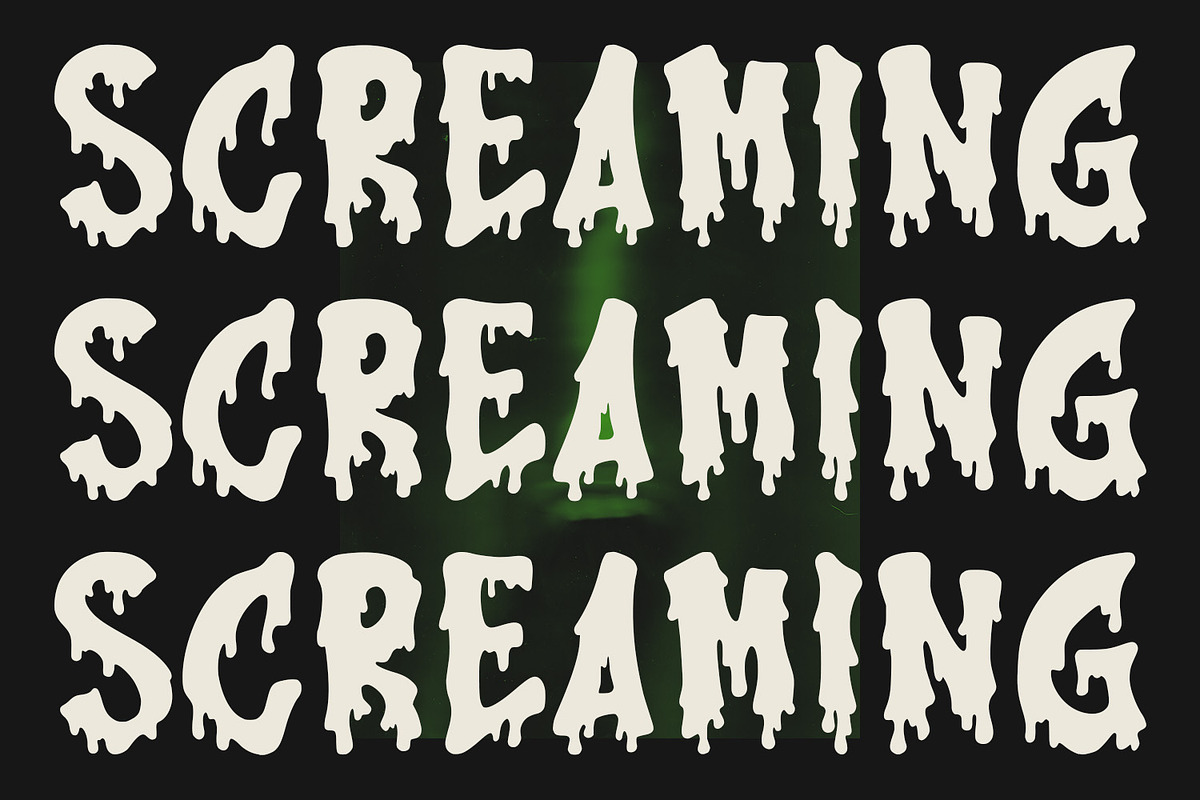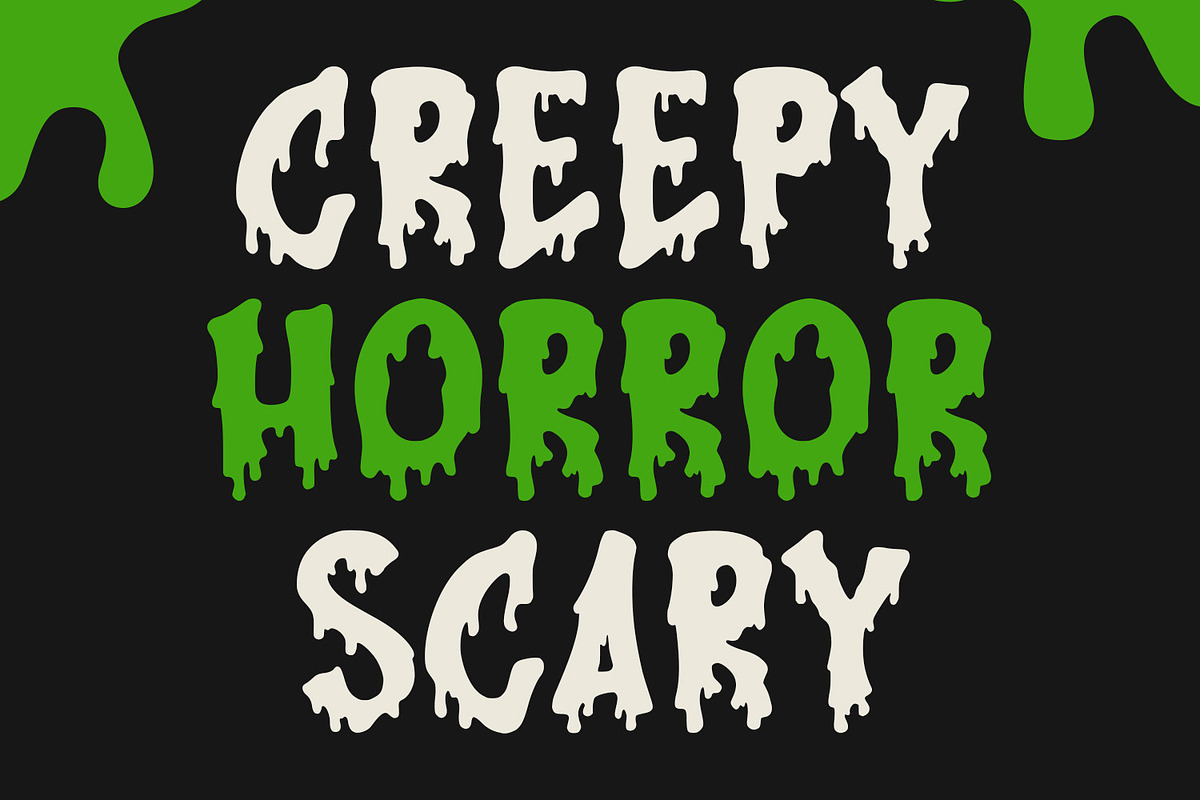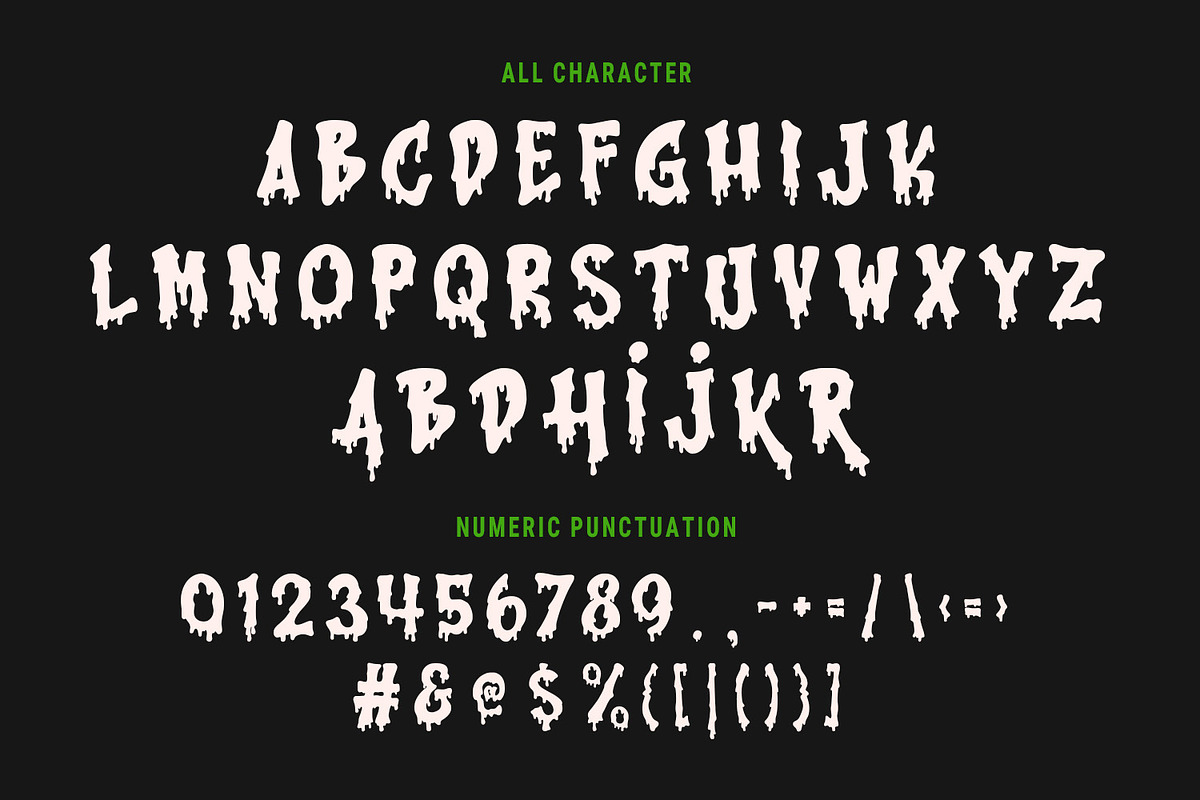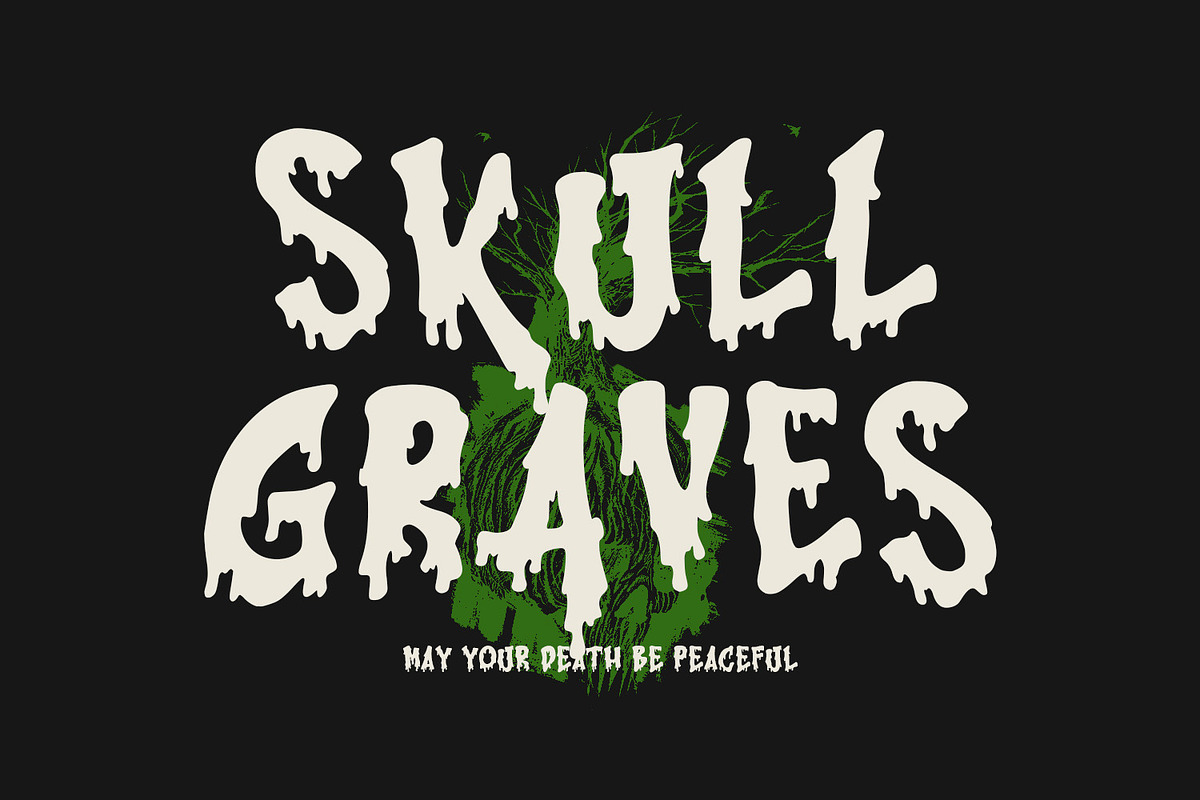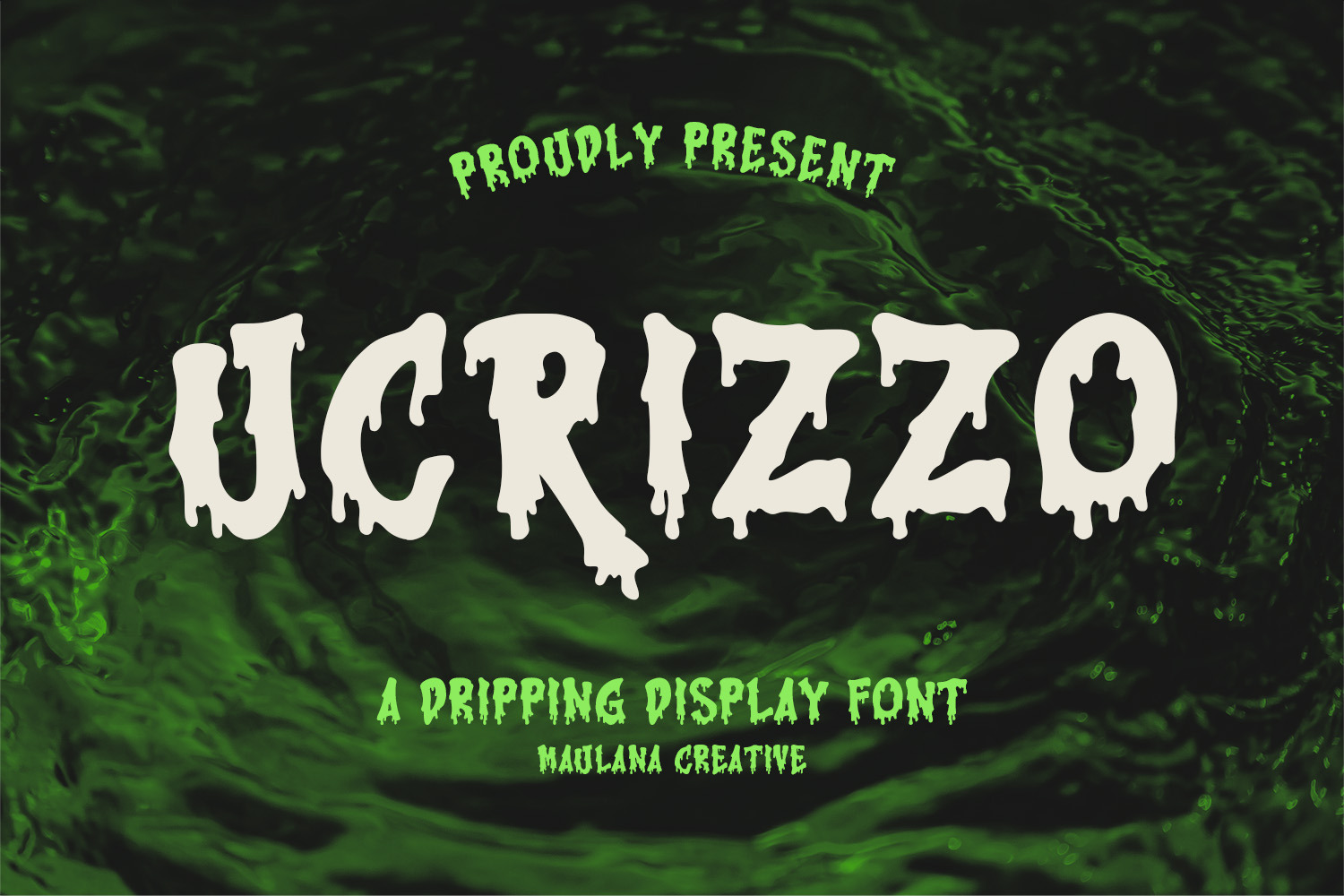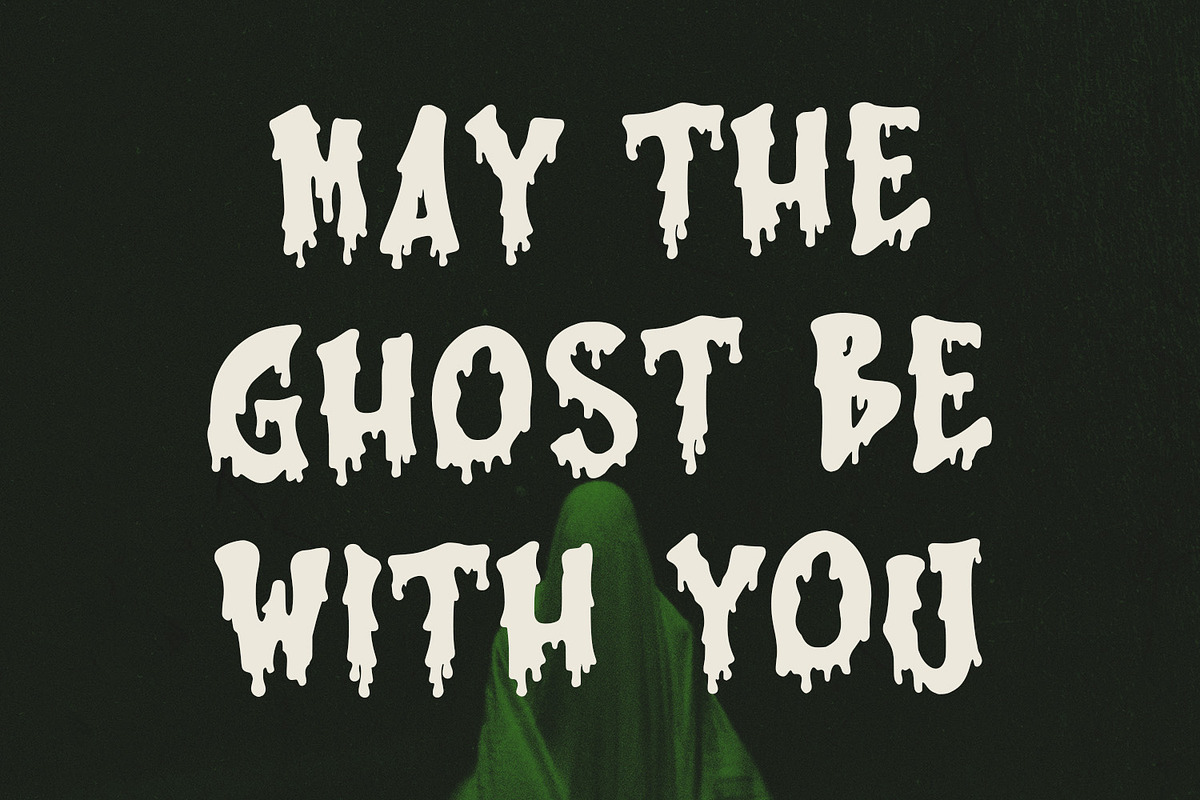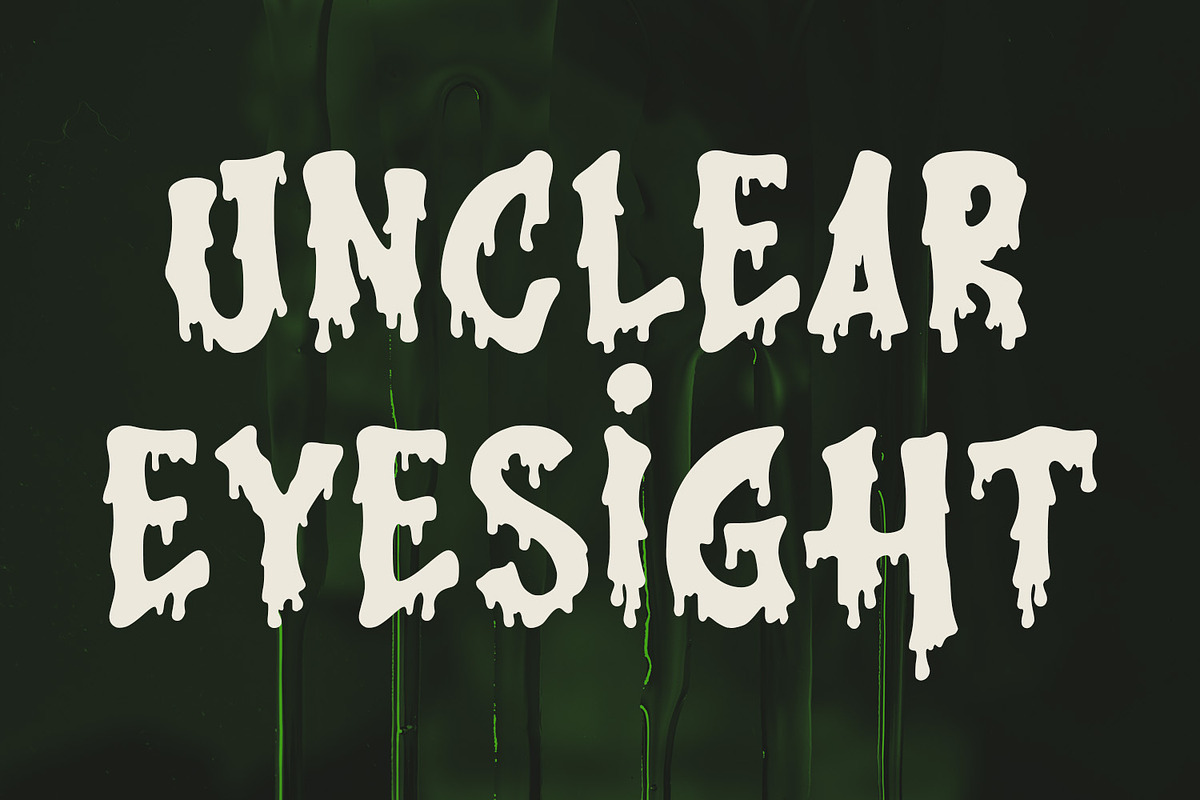
Ucrizzo Dripping Display Brush Font
Ucrizzo is a brush horror style display font. Ucrizzo font support multilingual more than 100+ language. This font is good for logo design, Social media, Movie Titles, Books Titles, a short text even a long text letter and good for your secondary text font with sans or serif. Make a stunning work with Ucrizzo font.